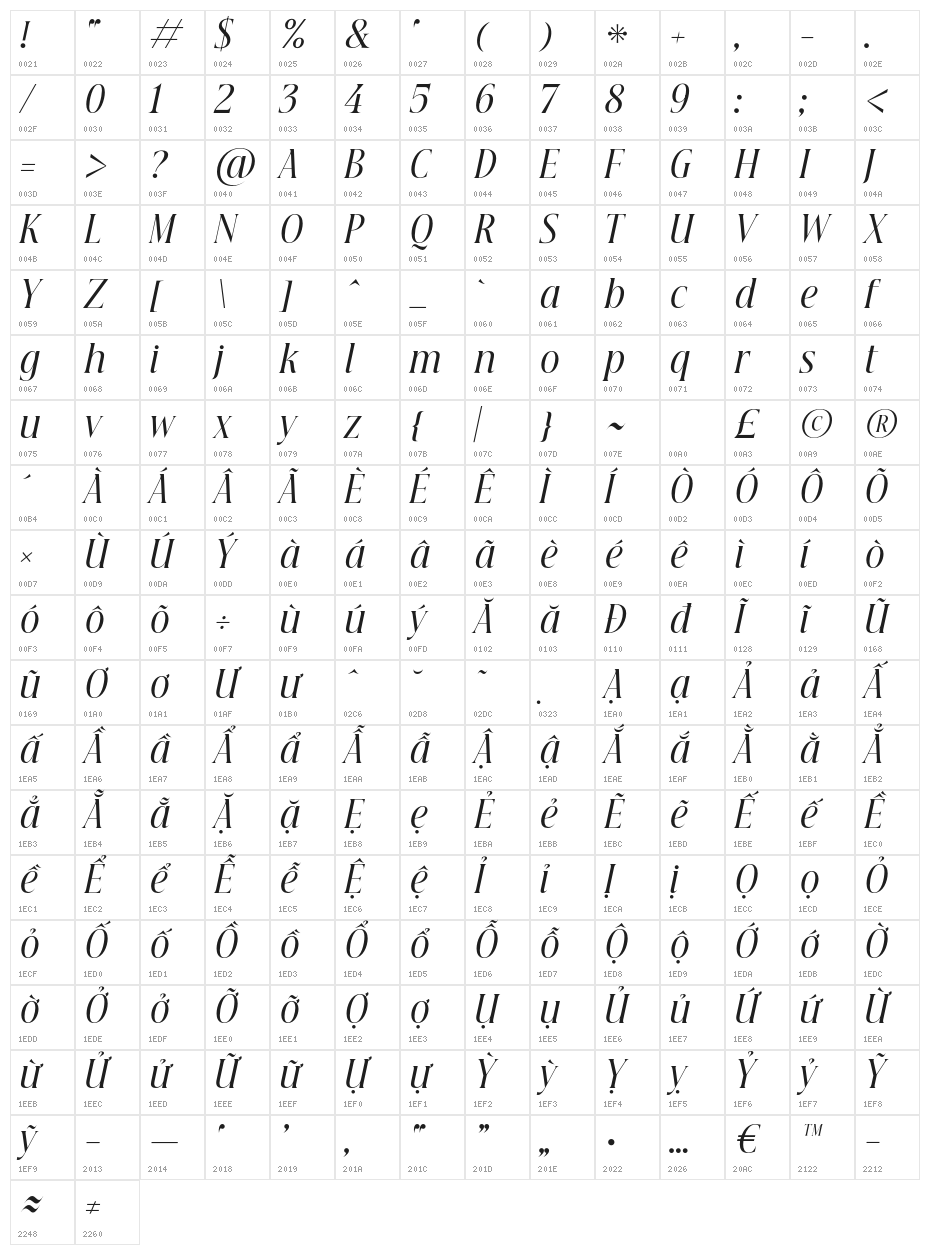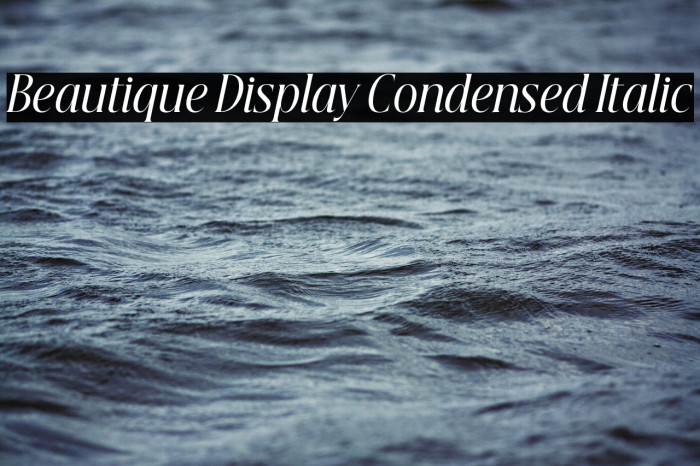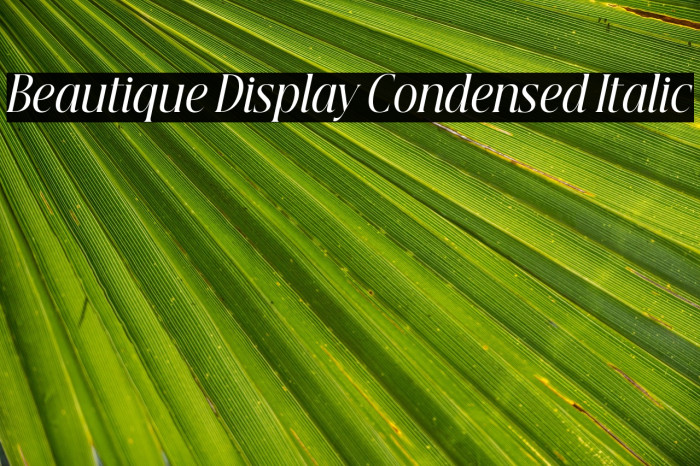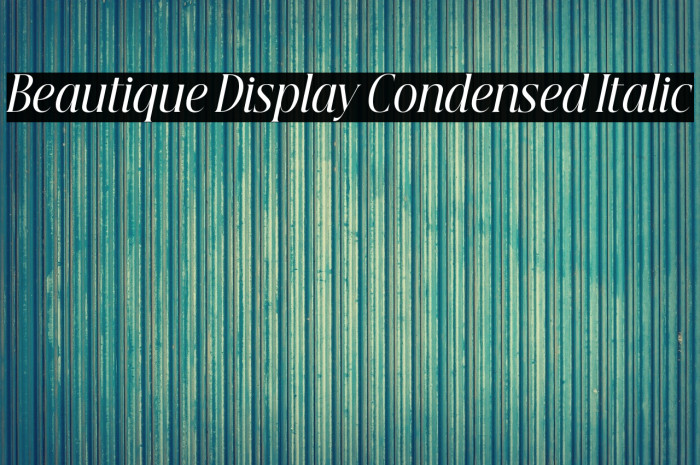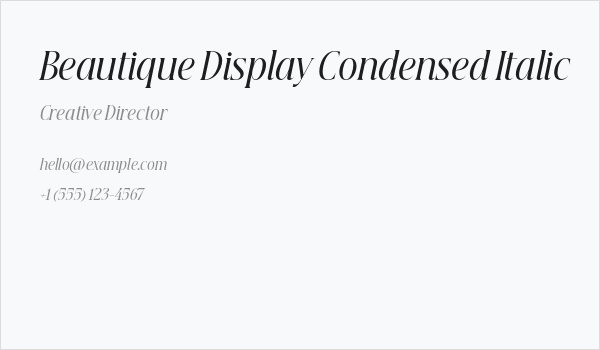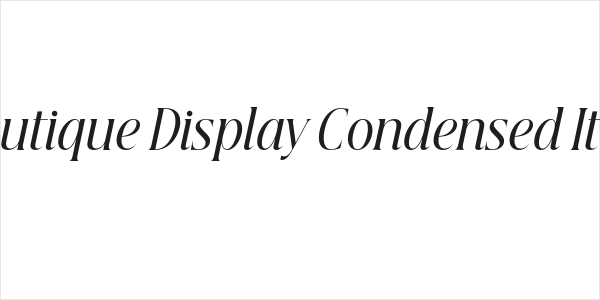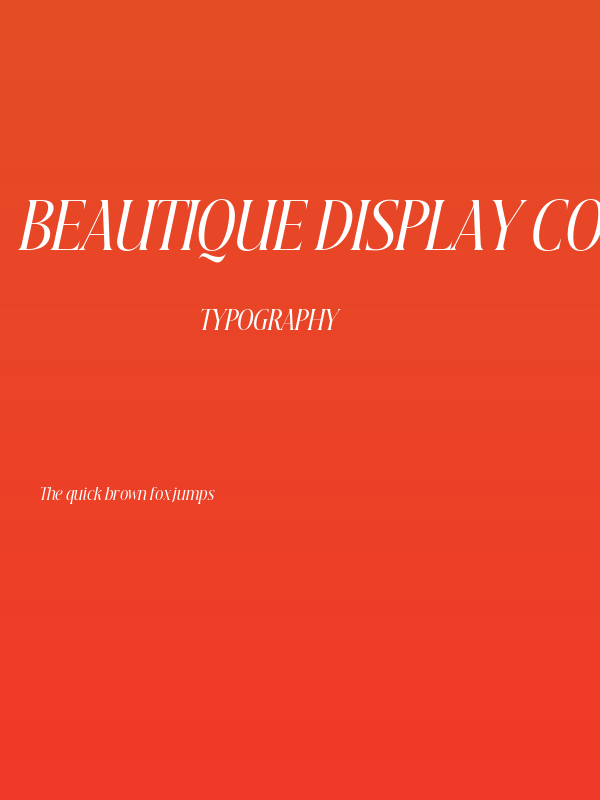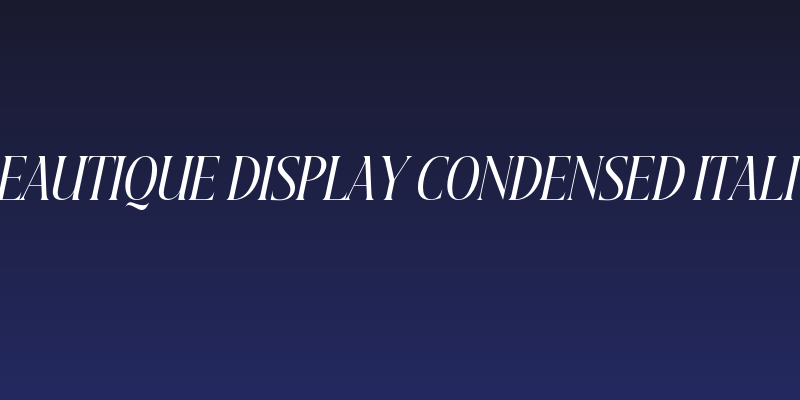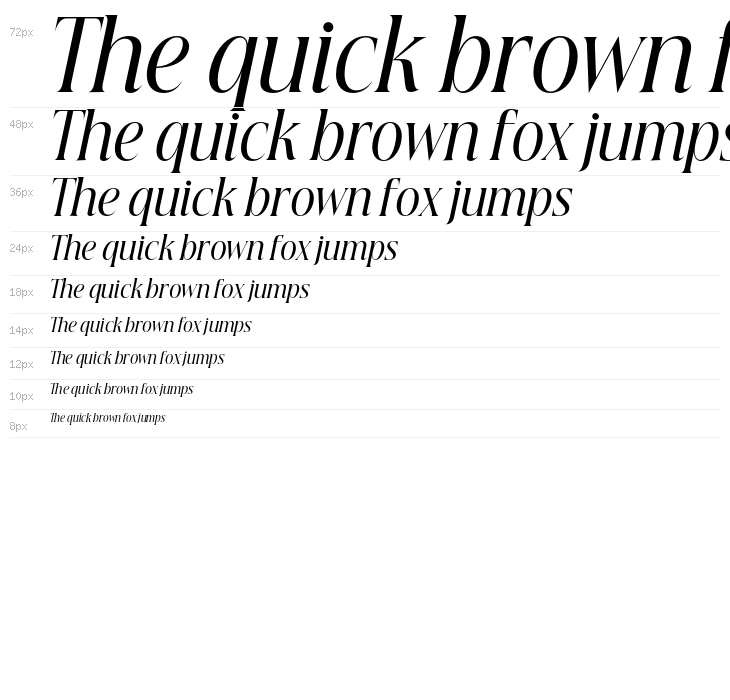
Beautique Display Condensed Italic Font
Beautique Display Condensed Italic Description
This elegant typeface features a sophisticated and stylish design, characterized by its condensed and italicized form. The letters exhibit a graceful slant, adding a sense of motion and fluidity. The strokes are refined and slightly elongated, giving the font a sleek and modern appearance. The high contrast between thick and thin strokes enhances its readability while maintaining a delicate aesthetic. The overall design is both timeless and contemporary, making it suitable for a variety of creative applications.
| Proposed Projects | Ideal for fashion magazines, luxury branding, elegant invitations, and high-end product packaging. |